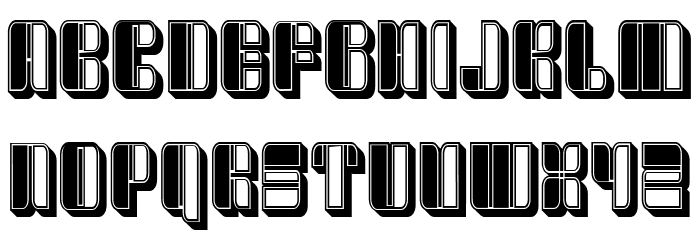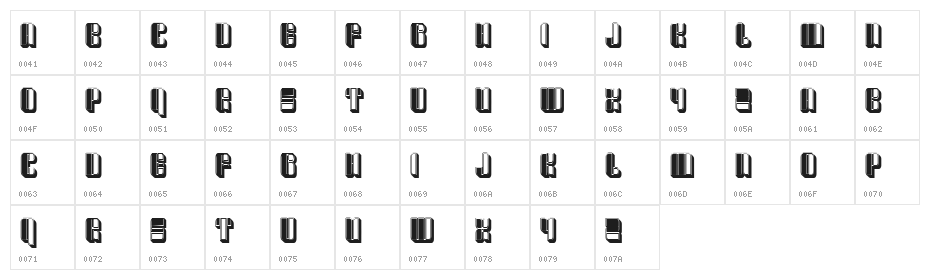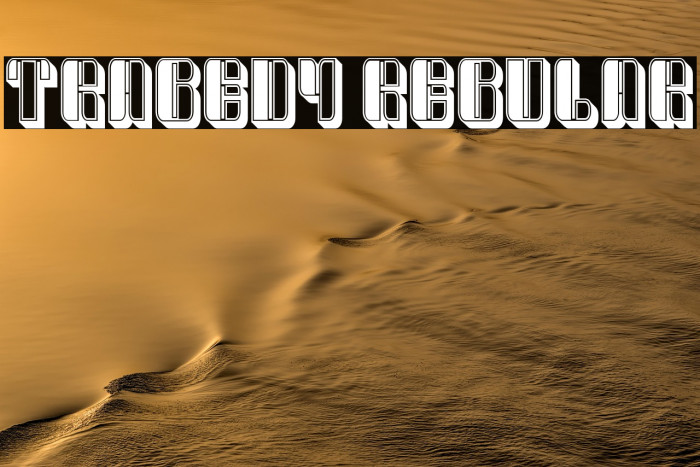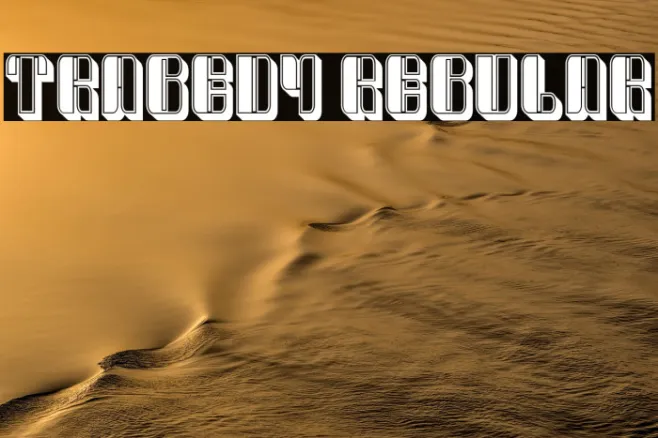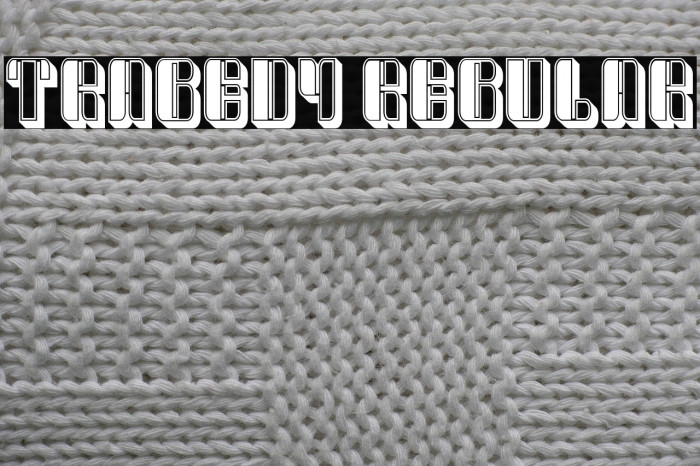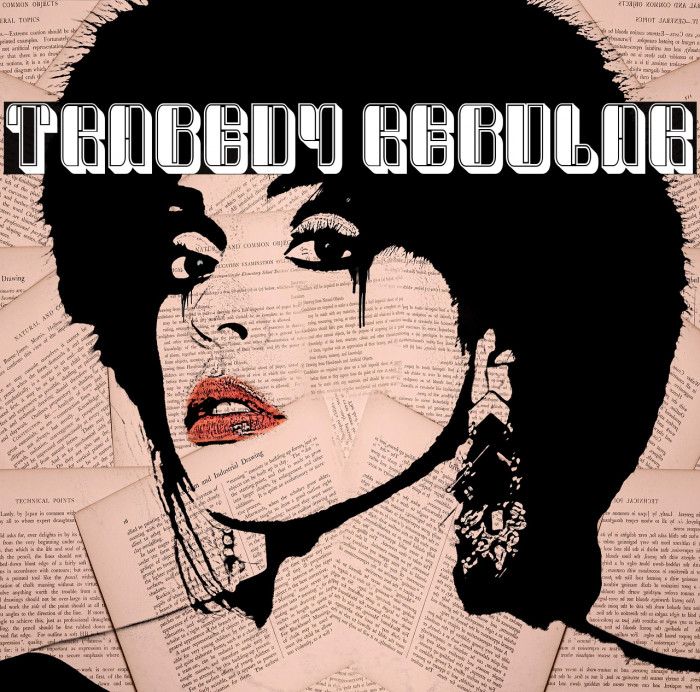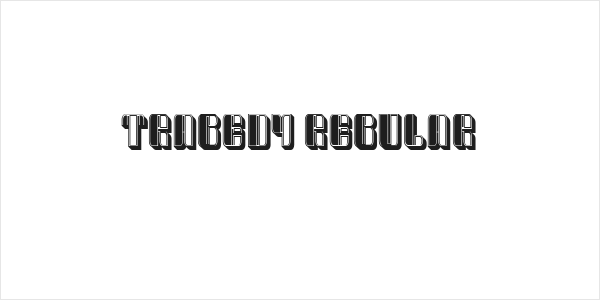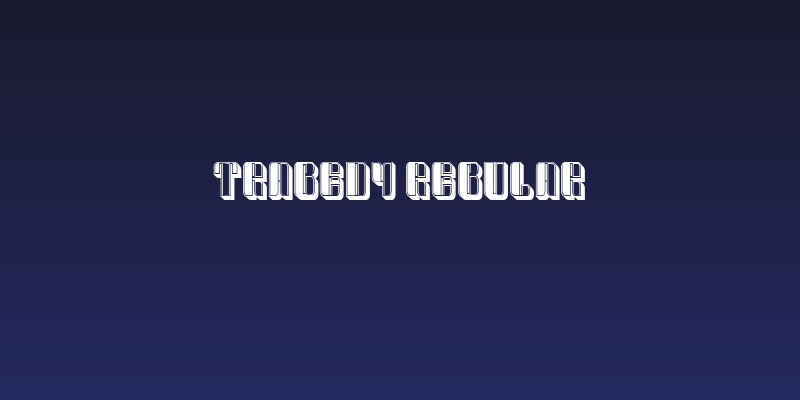
Tragedy Regular Font
Tragedy Regular Description
This font features a bold, geometric design with a three-dimensional effect, characterized by thick, block-like letters with a distinct shadow. The uppercase letters are uniform in height, creating a cohesive and structured appearance. The font's unique style is achieved through its layered look, combining solid and outlined elements to give a sense of depth and dimension. The characters are tightly spaced, enhancing the compact and impactful nature of the design. This font is ideal for making a strong visual statement, with its high contrast and bold presence.